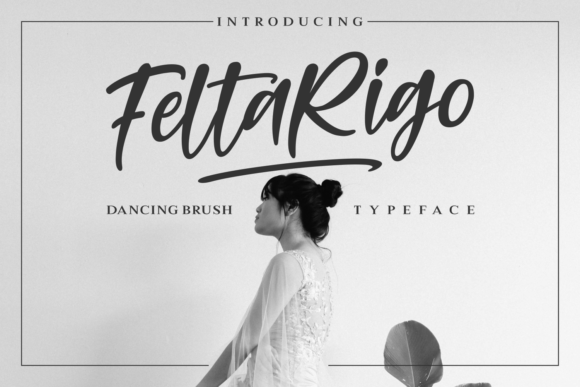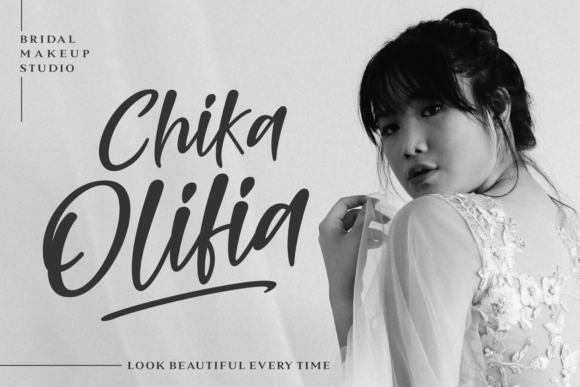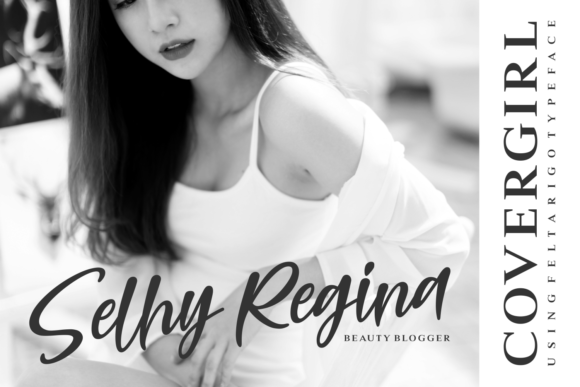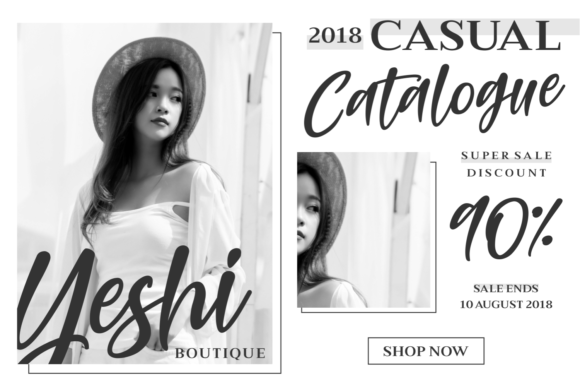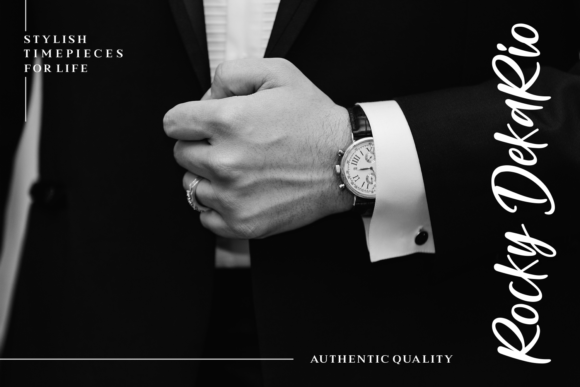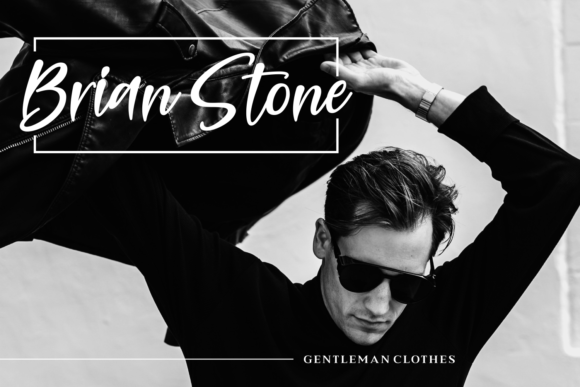
Feltarigo Font
About Feltarigo Font
Feltarigo is a dancing brush script. It is nicely curved and made with love and lots of attention to detail. Feltarigo can be used for many type of projects and will give the ultimate personal touch to any design.